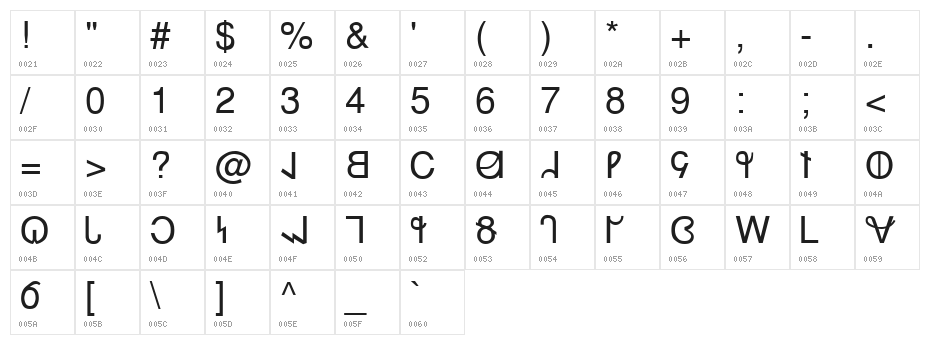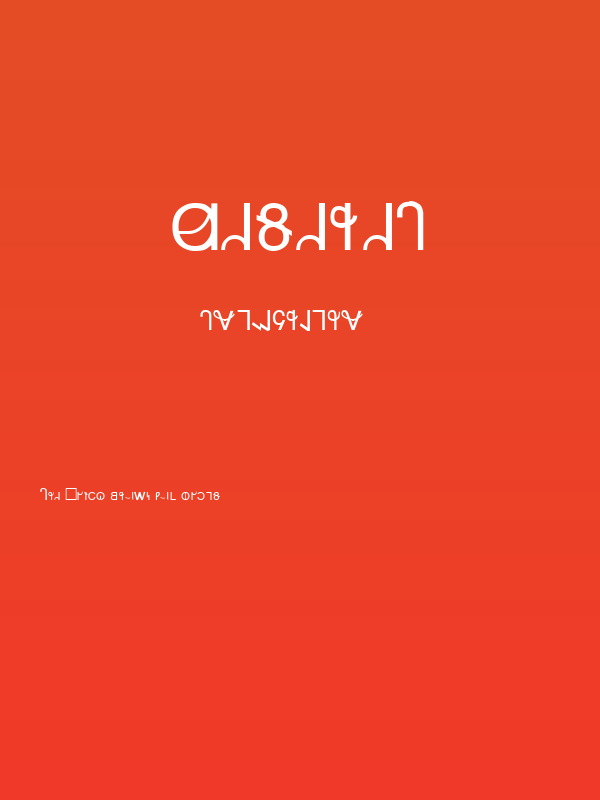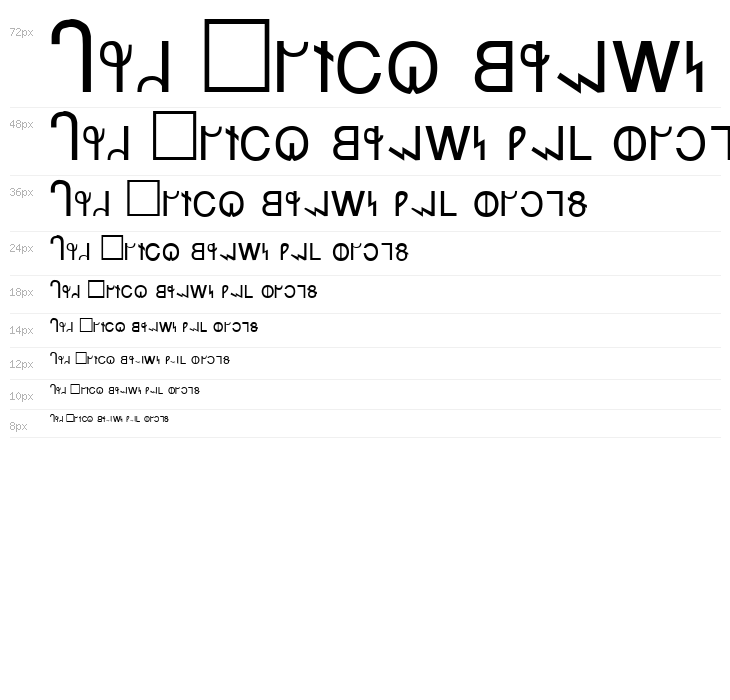
Deseret Font
| Stile generale | Historical, Geometric |
| Caso d'uso | Cultural exhibitions, Educational materials |
| Progetti proposti | Ideal for historical projects, educational materials, or cultural exhibitions exploring linguistic history. |